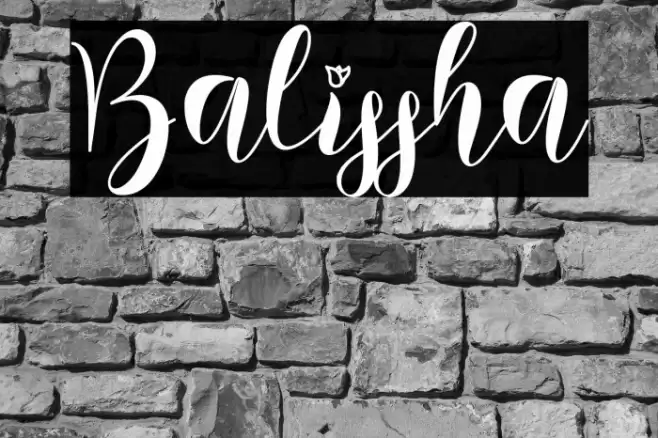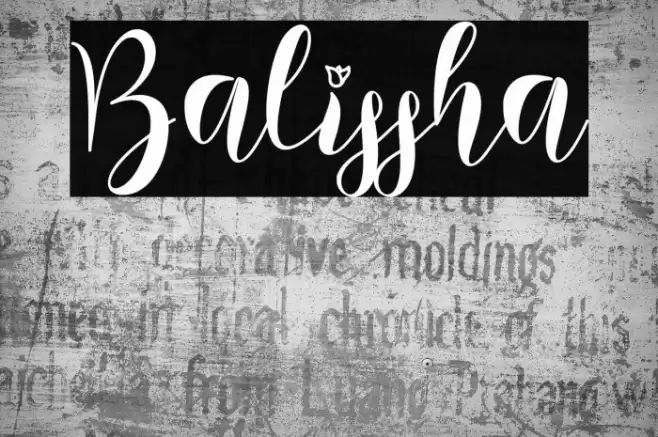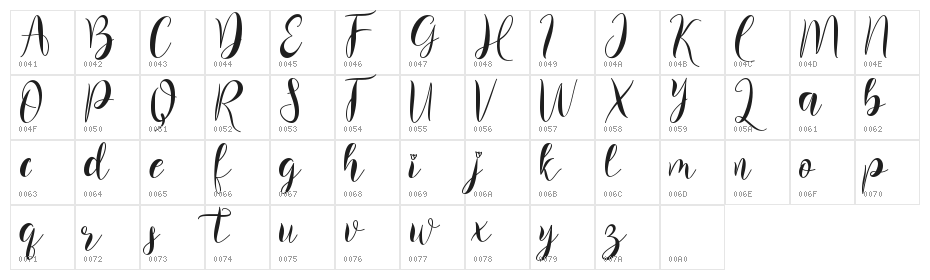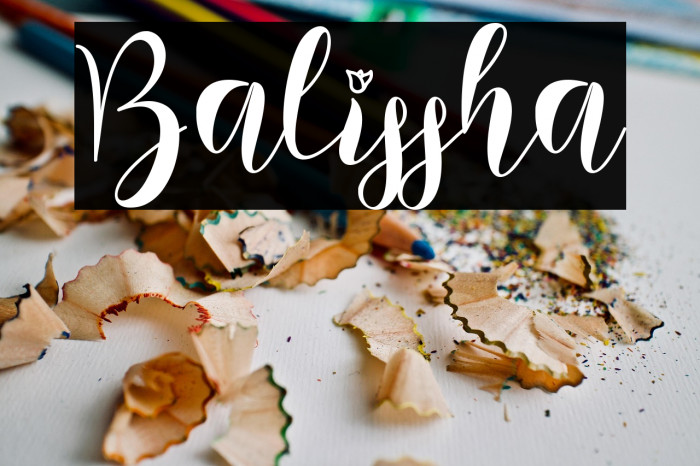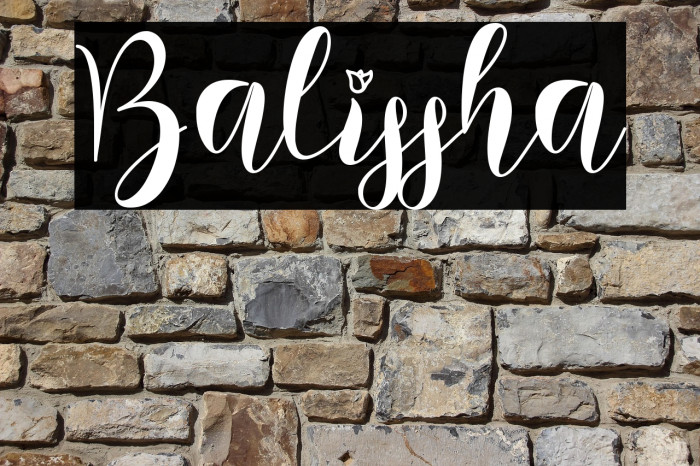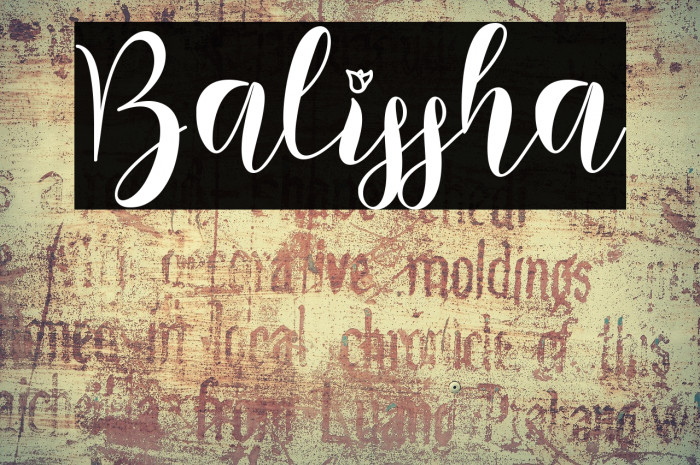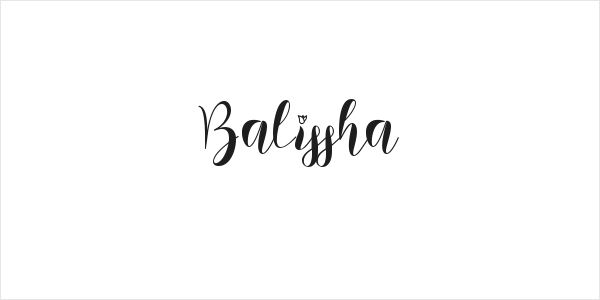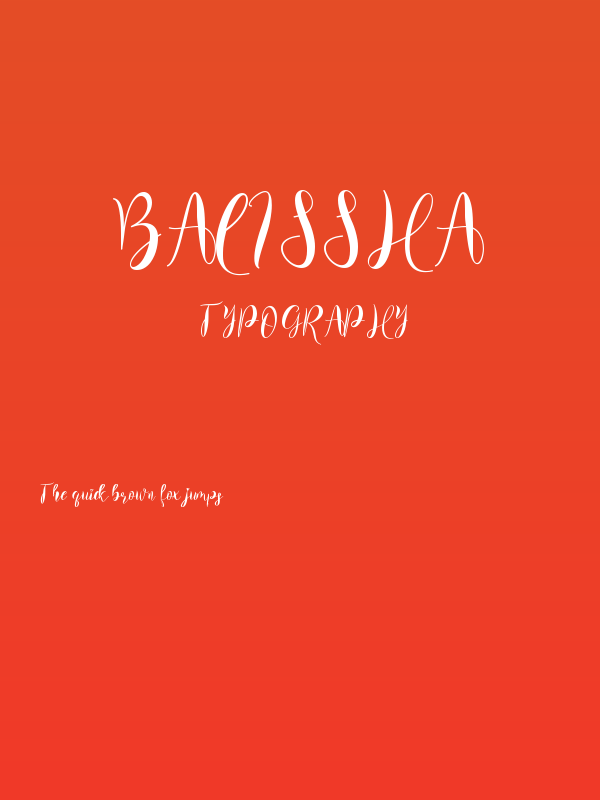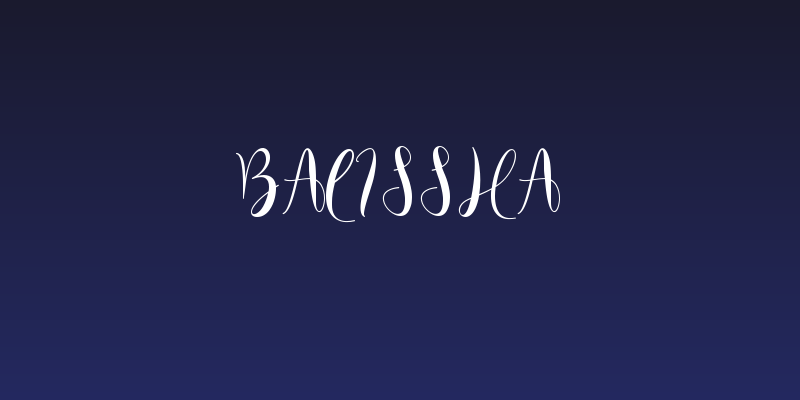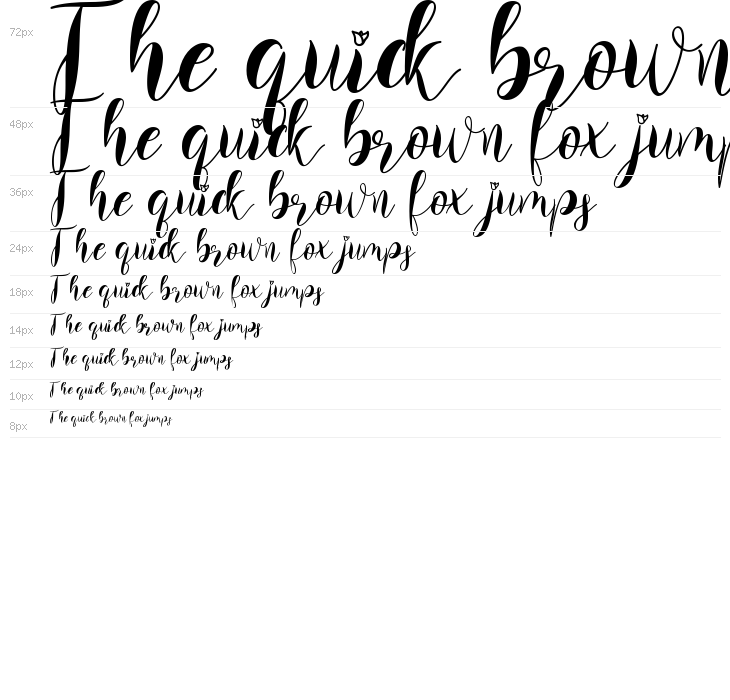
Balissha Font
Balissha Description
This font features an elegant and flowing script style, characterized by its smooth, cursive strokes and artistic flair. The letters are interconnected, creating a sense of continuity and fluidity. The uppercase letters are tall and graceful, while the lowercase letters maintain a consistent rhythm with occasional decorative elements, such as small hearts on the 'i' and 'j'. The overall appearance is both sophisticated and playful, making it suitable for a variety of creative applications. The font's design is reminiscent of hand-lettered calligraphy, offering a personal and artistic touch.
A flowing, elegant script font with cursive strokes and decorative elements from Regular fonts.
- Proposed Projects: Ideal for wedding invitations, greeting cards, branding, and decorative projects.
- Use Case: Logos, Invitations, Decorative text